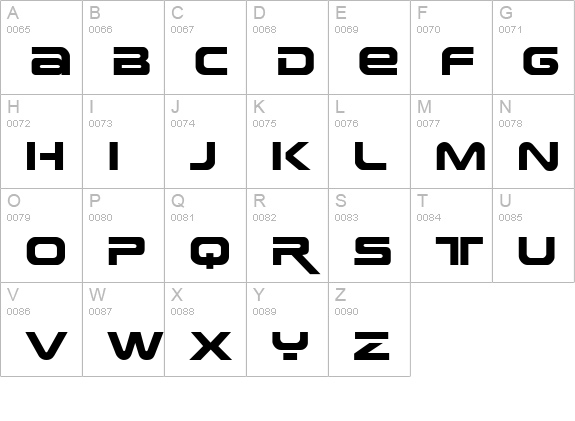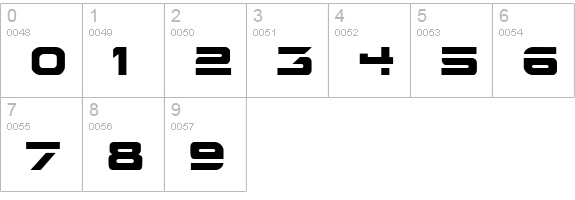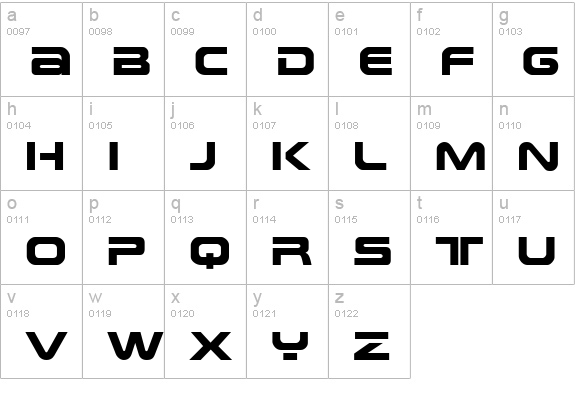
Earth Normal is the standard, neutral variant in the Earth typeface family \xE2\x80\x94 well suited to general body text, paragraphs, and standard typographic work.
Earth Normal font is a stunningly versatile typeface that effortlessly captures the essence of modern design. Its elegant and balanced letterforms exude a sense of timelessness, making it perfect for a wide range of projects, from branding and packaging to editorial and web design. With its clean lines and subtle curves, Earth Normal font strikes the perfect balance between legibility and creativity. One of the most remarkable features of Earth Normal font is that it is free. Yes, you read that right! This exceptional font is freely available to download at FontsMarket.com. Whether you are a professional designer or an aspiring creator, you can now elevate your work with this high-quality font without any financial constraints. With Earth Normal font, you have the freedom to express your creativity and bring your visions to life. The versatility of Earth Normal font is truly unparalleled. Its modern and minimalistic aesthetic adds a touch of sophistication to any project, while its carefully crafted letterforms ensure maximum readability across various mediums and sizes. From headlines to body text, Earth Normal font adapts effortlessly to any typographic setting, enhancing the visual impact of your design. The extensive character set of Earth Normal font includes uppercase and lowercase letters, numerals, punctuation marks, and a variety of special characters, enabling you to fully customize your typography and create unique compositions. Its flawless kerning and meticulous attention to detail ensure seamless and harmonious typesetting, allowing your message to truly shine. Earth Normal font is not only visually appealing but also incredibly easy to work with. Its well-organized file structure and user-friendly design make it a breeze to install and use, saving you valuable time and effort. Whether you are a seasoned designer or just starting out, Earth Normal font provides a hassle-free and enjoyable experience, allowing you to focus on what truly matters – your creative process. In conclusion, Earth Normal font is a remarkable typeface that combines elegance, versatility, and the freedom of being free. Download this exceptional font from FontsMarket.com today and unlock the potential to create stunning designs that captivate audiences and leave a lasting impression. With Earth Normal font, the possibilities are limitless, and your creativity knows no bounds.